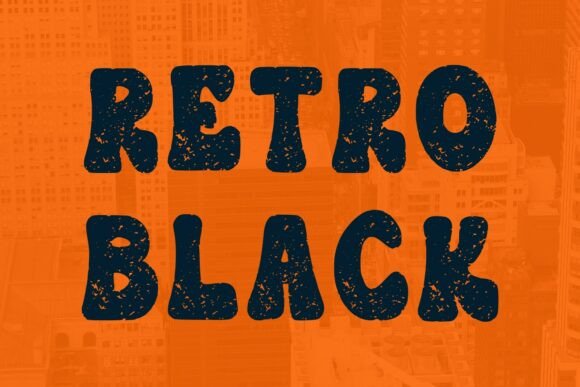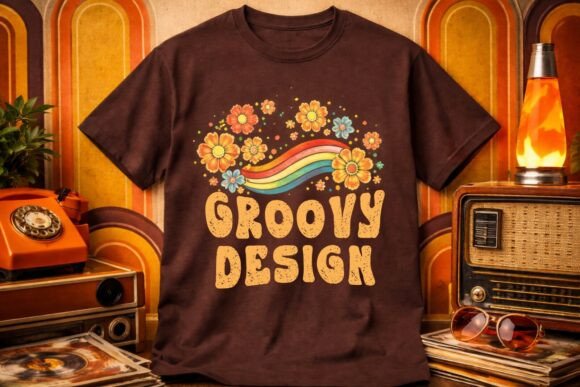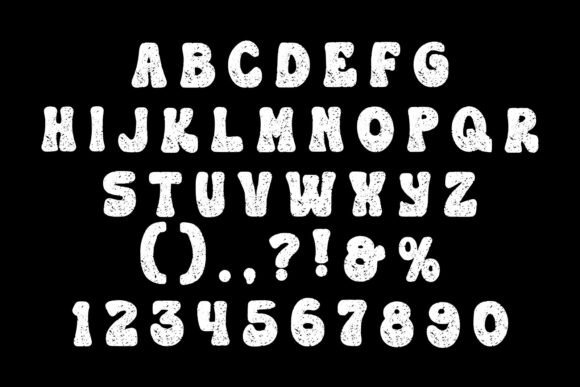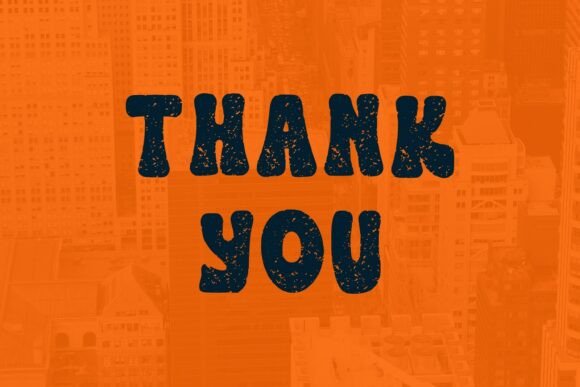
Introducing Dirty Groovy Font: The Ultimate Typeface for Retro Rebels
Get ready to bring back the funk with Dirty Groovy font, a high-energy display face that blends 70s nostalgia with a gritty, modern street vibe. This typeface captures the essence of retro bubble letters but adds a heavy layer of “noise” and distress for a worn, printed look that’s perfect for designers and crafters who want to add a touch of rebelliousness to their work.
The Birth of a Retro Rebel
The Dirty Groovy font is more than just a typeface – it’s a statement. Inspired by the vibrant, playful lettering of the 1970s, this font takes the classic bubble letter style and turns it on its head with a gritty, modern twist. The result is a look that’s equal parts nostalgic and edgy, perfect for streetwear branding, vinyl record covers, or edgy social media graphics that need to feel authentic and lived-in.
The Perfectly Imperfect Aesthetic
When you use the Dirty Groovy font, you’re embracing a “perfectly imperfect” aesthetic that’s all about embracing the beauty of imperfection. This typeface pairs beautifully with grainy film photography and vibrant, warm color palettes, adding a touch of raw energy to any design. Whether you’re a designer looking to add some edge to your branding or a crafter seeking to create unique and eye-catching graphics, Dirty Groovy font is the ultimate choice.
Key Features of Dirty Groovy Font
- Retro-inspired design: Dirty Groovy font takes its cues from the playful, curved lettering of the 1970s.
- Gritty, distressed look: A heavy layer of “noise” and distress gives this font a worn, printed look that’s perfect for adding a touch of rebelliousness to your designs.
- High-energy display face: Use Dirty Groovy font to add a burst of energy to your streetwear branding, vinyl record covers, or social media graphics.
- Perfectly imperfect aesthetic: This typeface celebrates the beauty of imperfection, adding a touch of raw energy to any design.
Use Cases for Dirty Groovy Font
So, what can you do with Dirty Groovy font? The possibilities are endless! Here are a few ideas to get you started:
- Streetwear branding: Add a touch of rebelliousness to your streetwear brand with Dirty Groovy font.
- Vinyl record covers: Give your vinyl record covers a retro vibe with this gritty, modern typeface.
- Social media graphics: Use Dirty Groovy font to add a burst of energy to your social media graphics.
- Posters and flyers: Create eye-catching posters and flyers with this high-energy display face.
Tips for Using Dirty Groovy Font
Here are a few tips for getting the most out of Dirty Groovy font:
- Experiment with color: Pair Dirty Groovy font with vibrant, warm color palettes to add a touch of raw energy to your designs.
- Mix and match: Combine Dirty Groovy font with other typefaces for a unique, eclectic look.
- Emphasize the imperfections: Don’t be afraid to leave in a few imperfections – they’re what make Dirty Groovy font so charming!